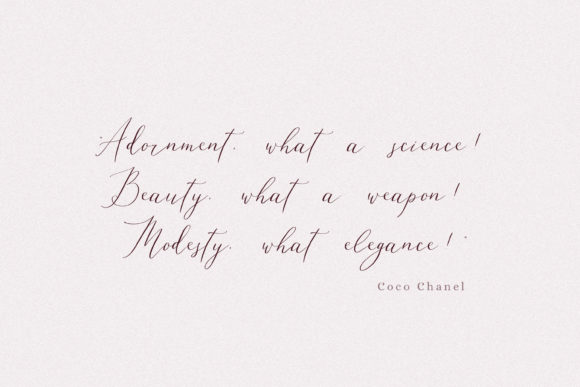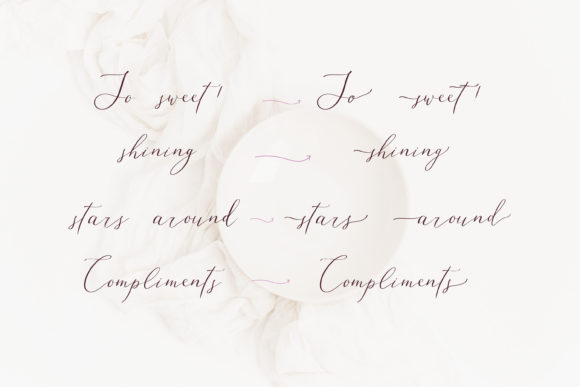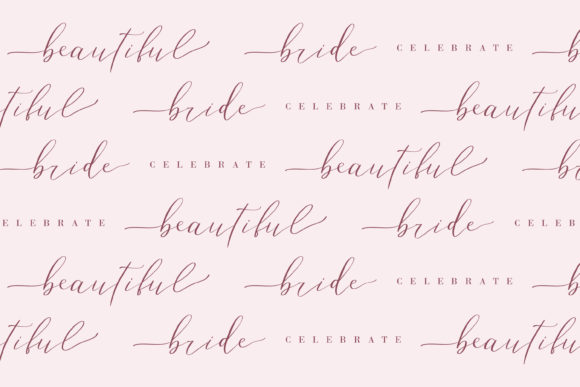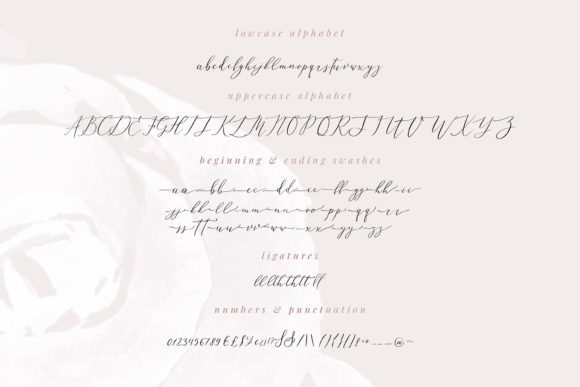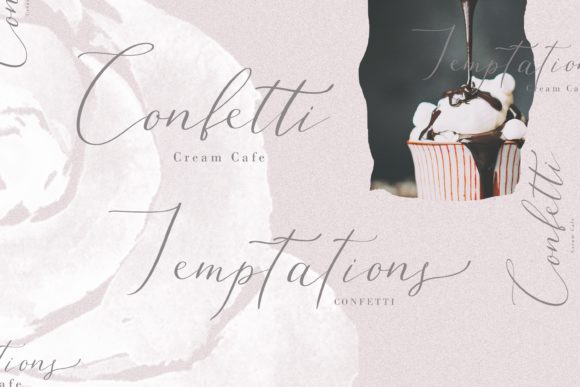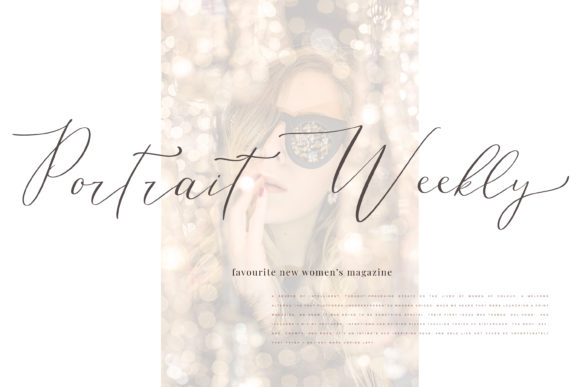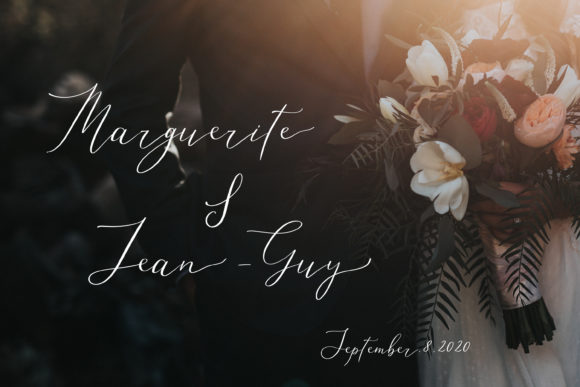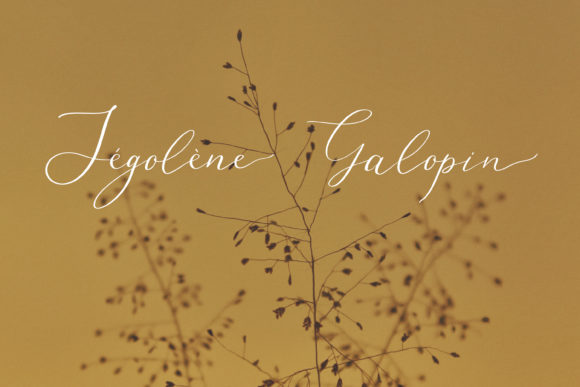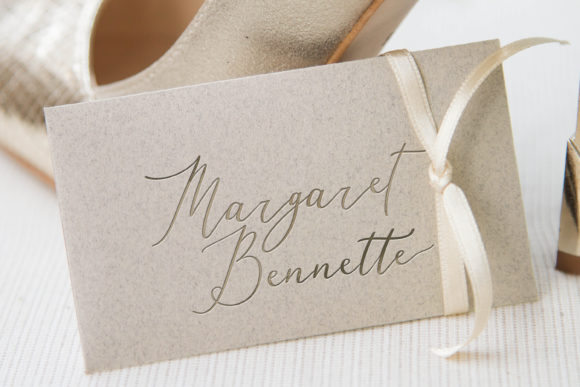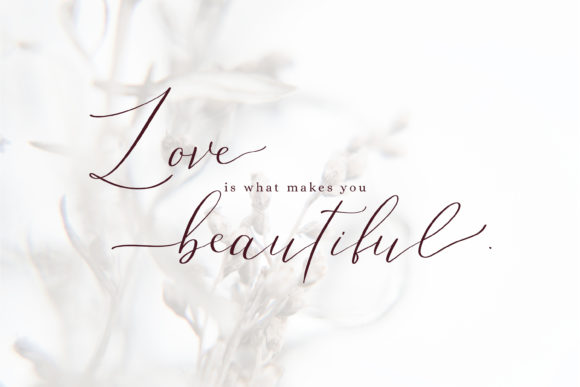
Leisoll Reef Font
About Leisoll Reef Font
Leisoll Reef is an elegant modern calligraphy script created mostly for feminine designs projects. It will add a romantic touch to any crafting project!